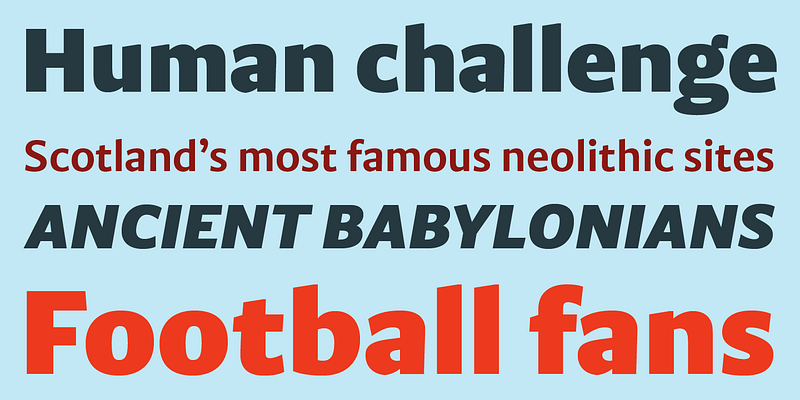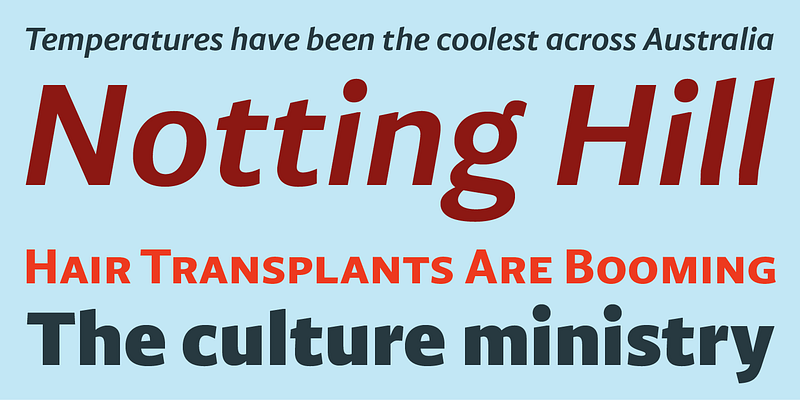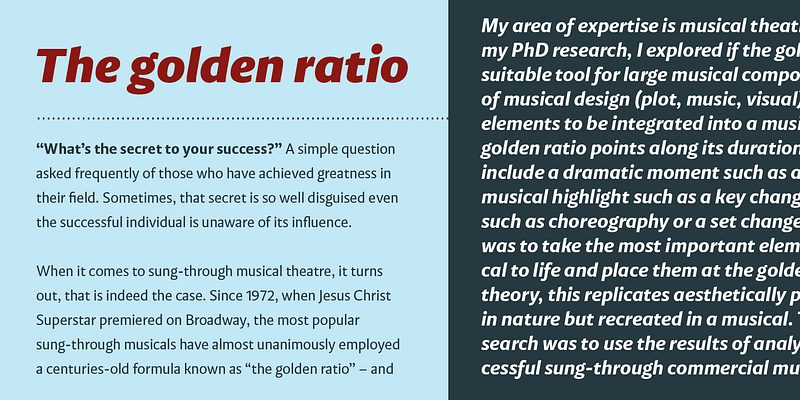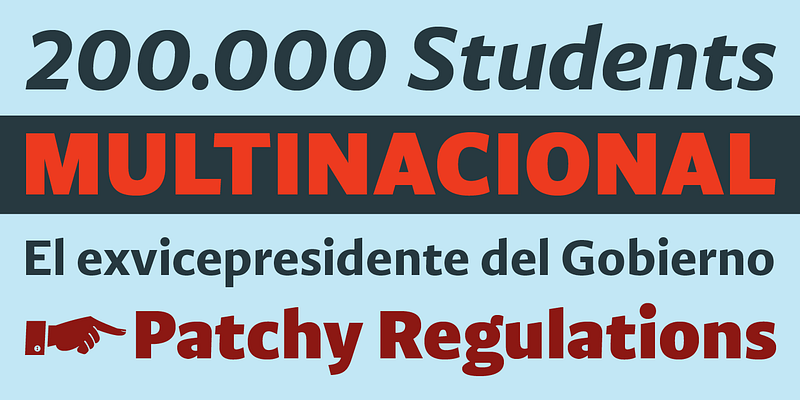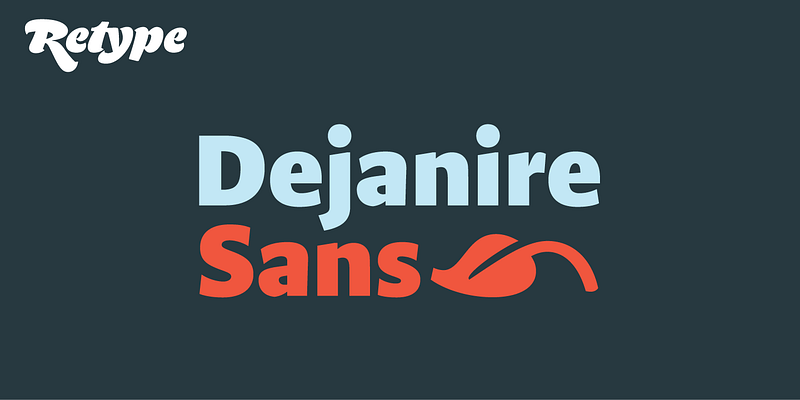
Dejanire is a type family loosely inspired by an anonymous display typeface found in a type specimen by Claude Lamesle, published in Paris in 1742. It takes its name from Deianira, a Calydonian princess in Greek mythology and the wife of Heracles. Dejanire is a transitional roman with a marked contrast and a crisp presence both in print and on screen, making it an ideal choice for robust titles, pull quotes, and decks.